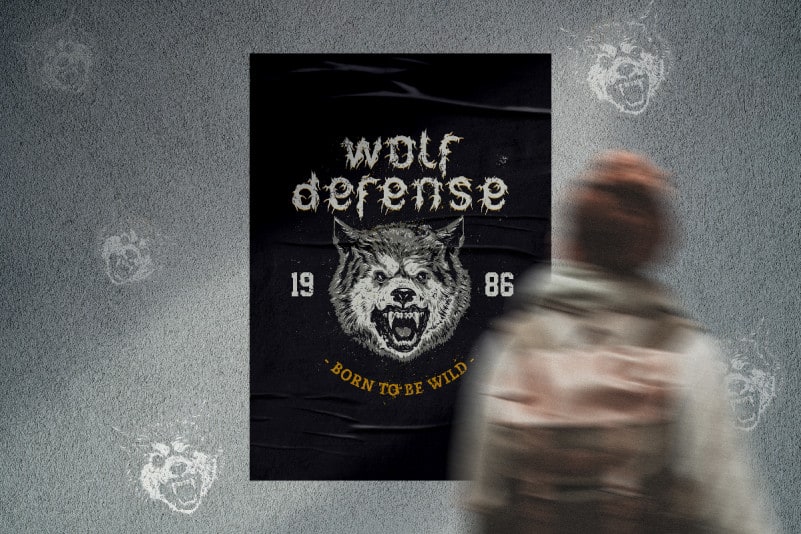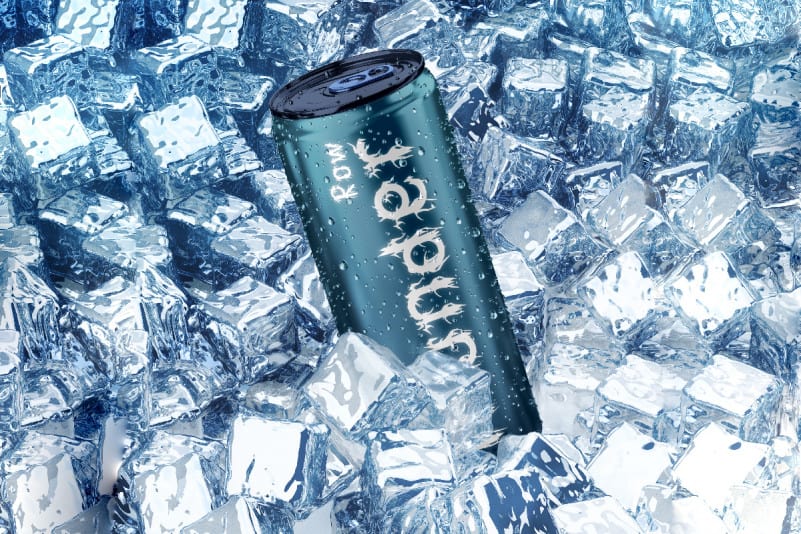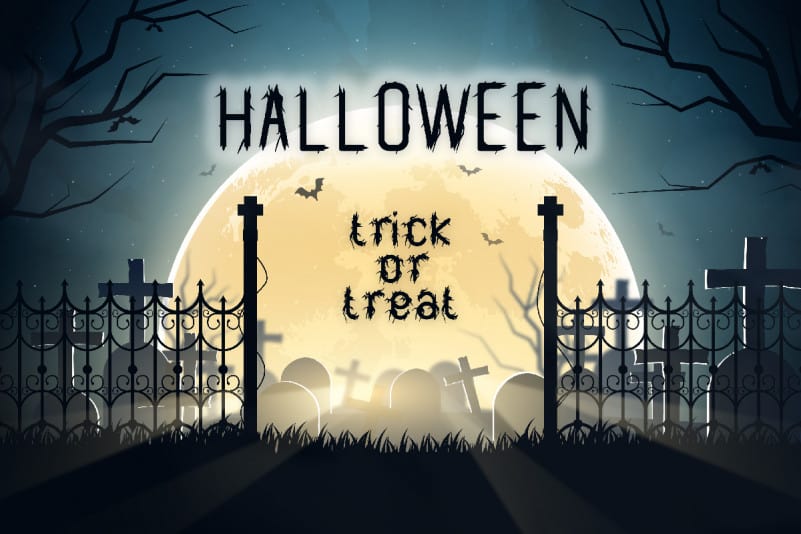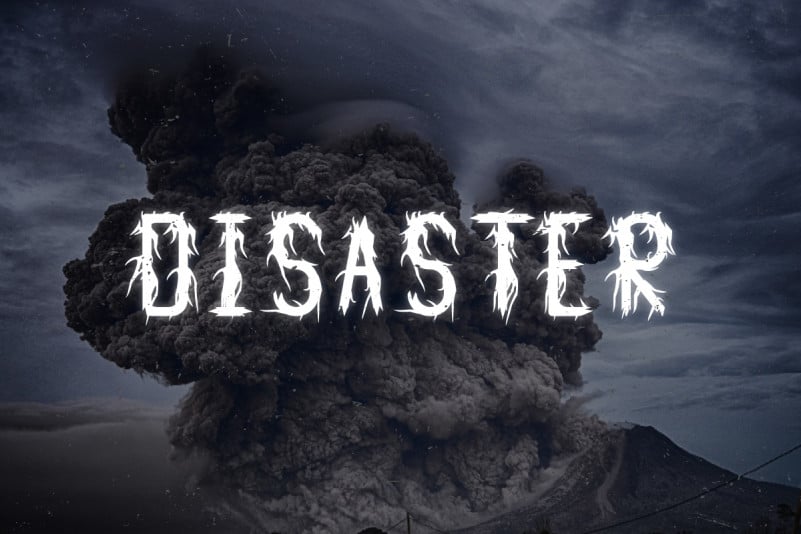
Vaulcate Font is a display font with horror and grunge theme. The font was inspired by many classic dark horror movies. It has a unique artistic handmade style that will bring the mysterious effect to the design. It will also works for games, band cover, and any related things. Vaulcate Font comes with four styles : Reguler, Bold, Italic and Outlined. It includes full set of Uppercase and Lowercase Basic Characters, Numerals and Punctuation. Also it contains ligatures to make it awesome. You can also combine two or more styles on the text like we did on the cover, so you will great even more unique and special font. The font is perfect for many projects, headlines, logos, poster, tittle, products, etc